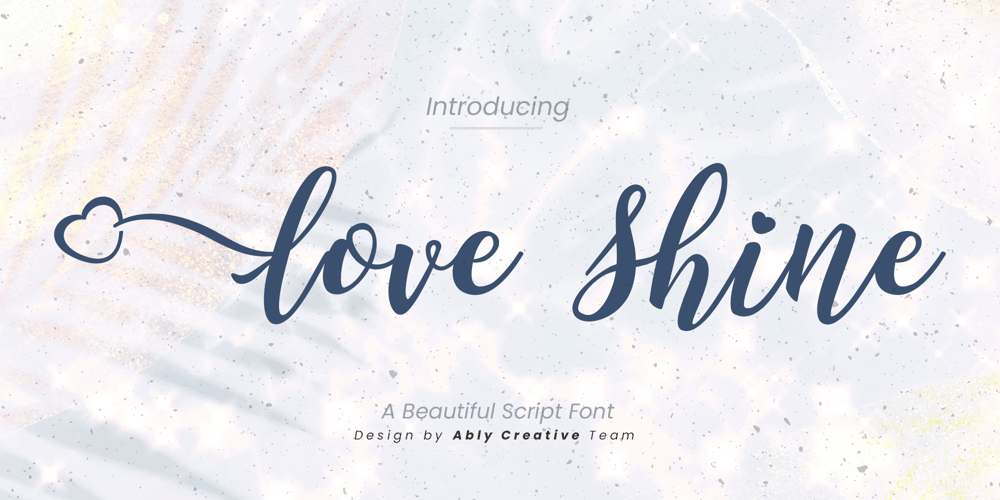
Love Shine Font Family was designed by Amrullah Medan, Amrullah, Dedi Purwanto and published by Ably Creative. Love Shine contains 1 styles and family package options. Introducing the Love Shine. made with love design harmony in every single character. love Shine and a touch of the extras makes this font look great and stylist. Plus the OpenType features that allows you to mix and match pairs of letters to fit your design. and last the beautiful all will make you work easily to create : Badges, lable, greeting card , book cover, Posters, Logos, Print, Quotes, Headers, Clothing, etc. Features : Uppercase + Lowercase Numerals & Punctuations Stylistic Alternates Thank you